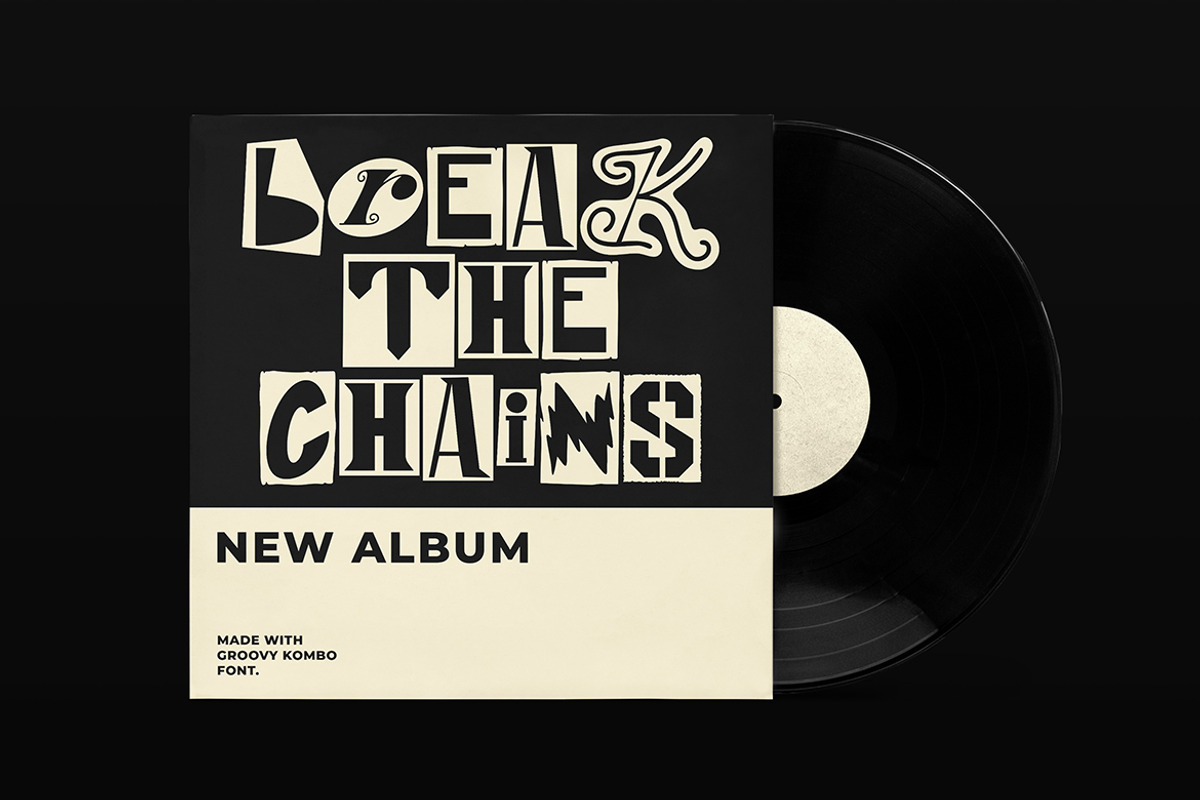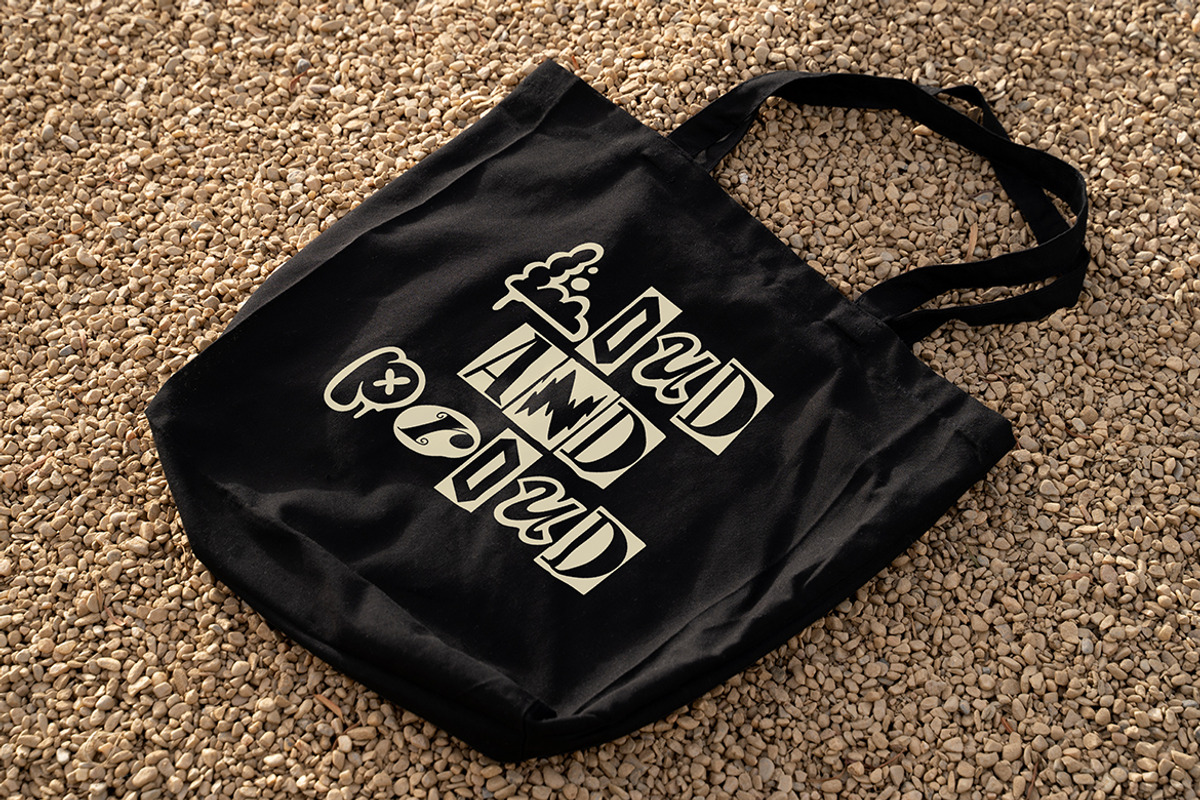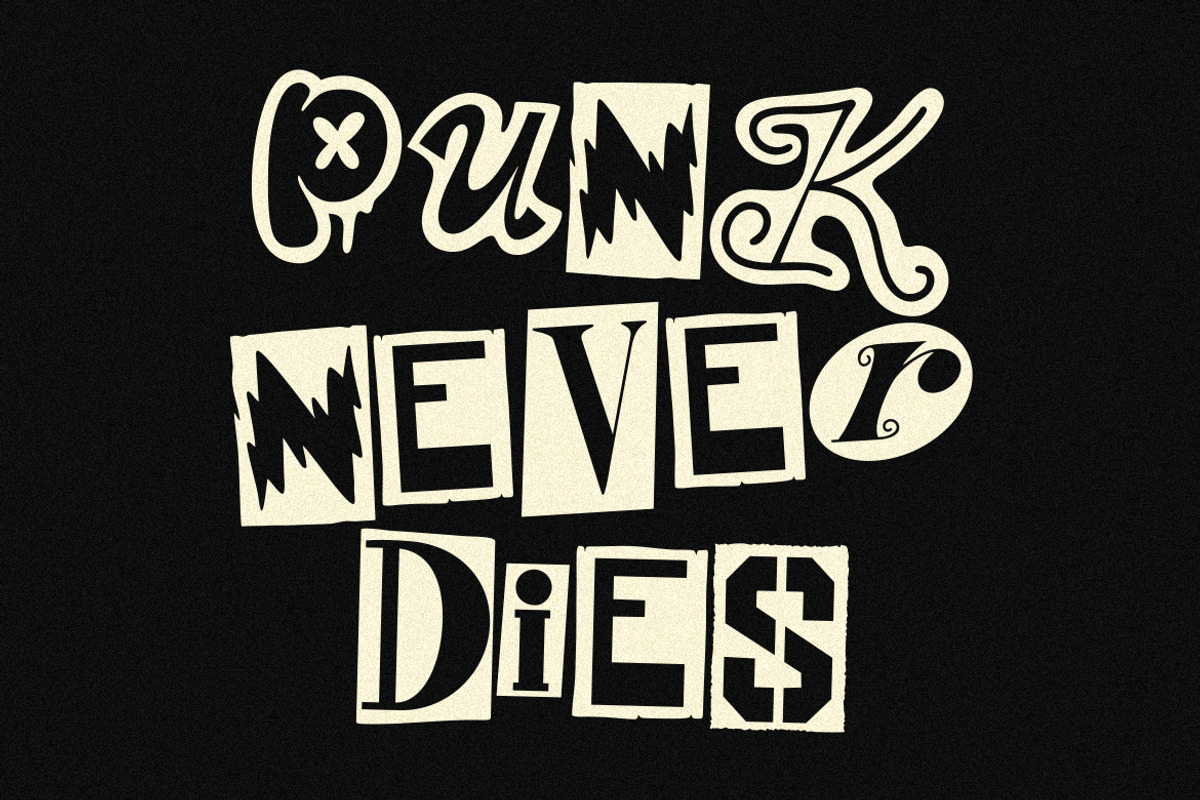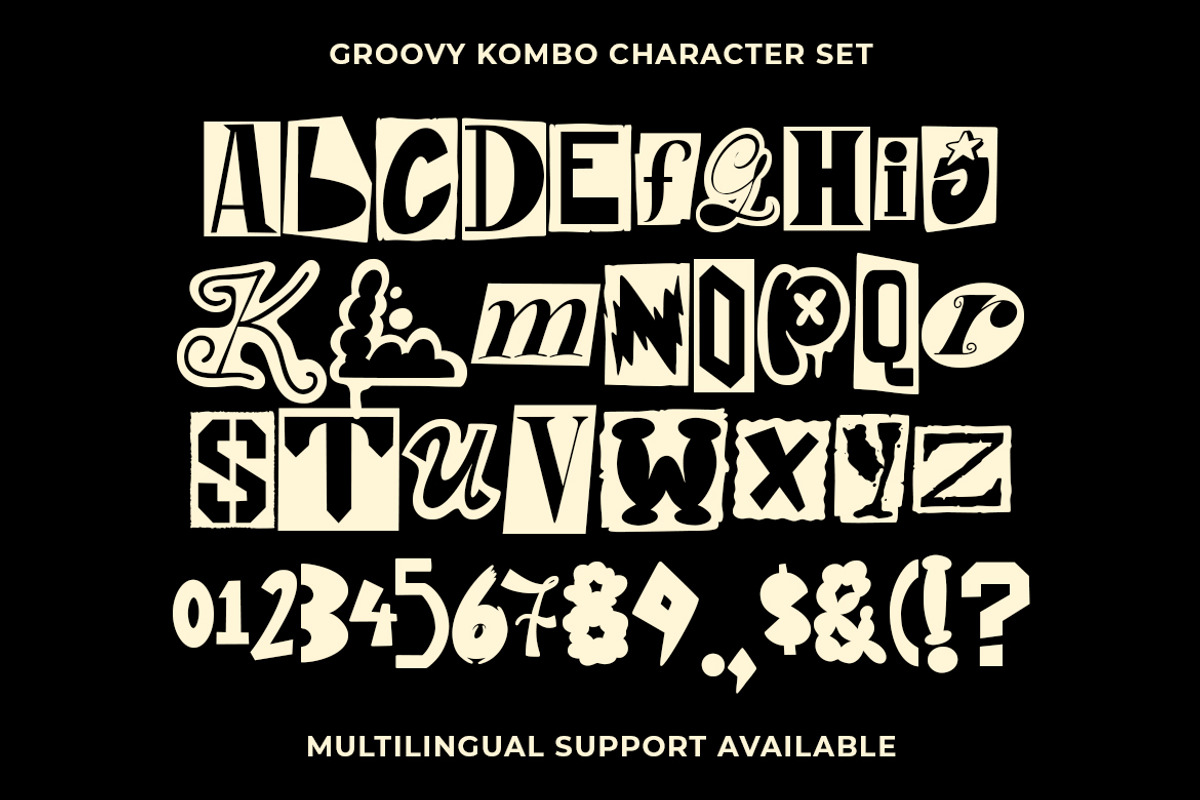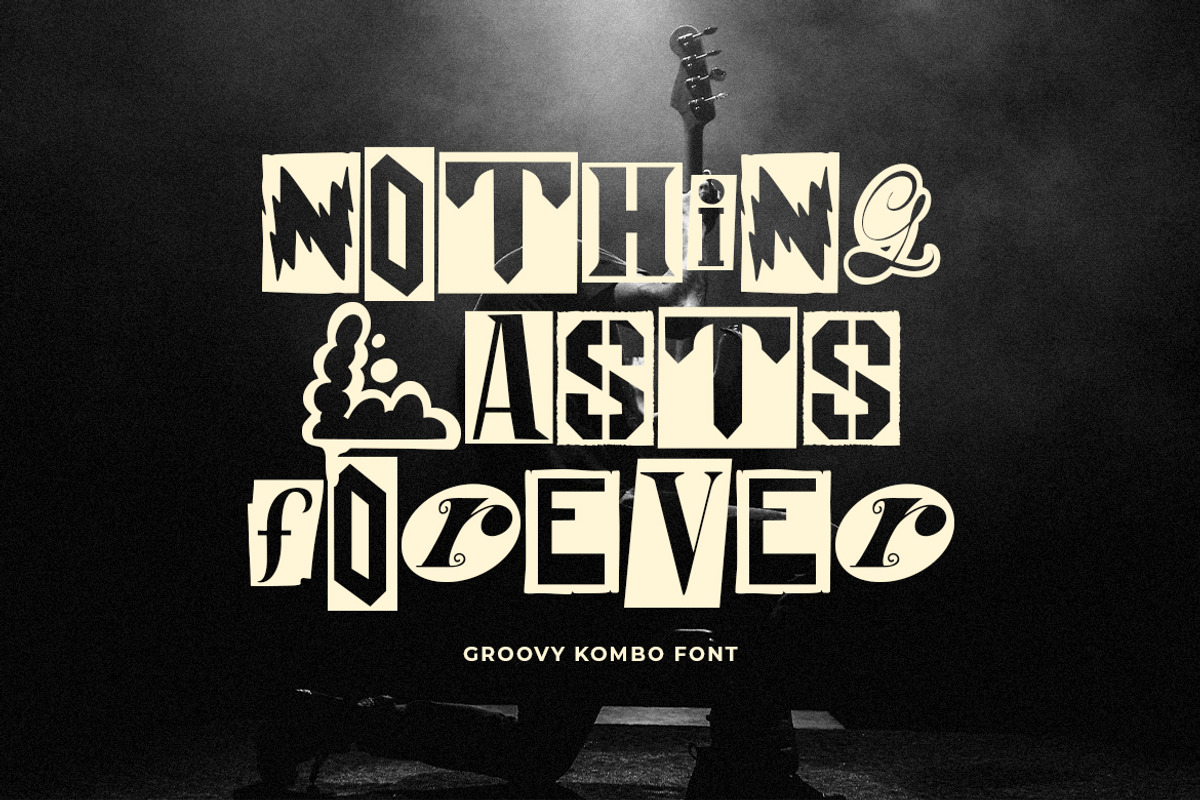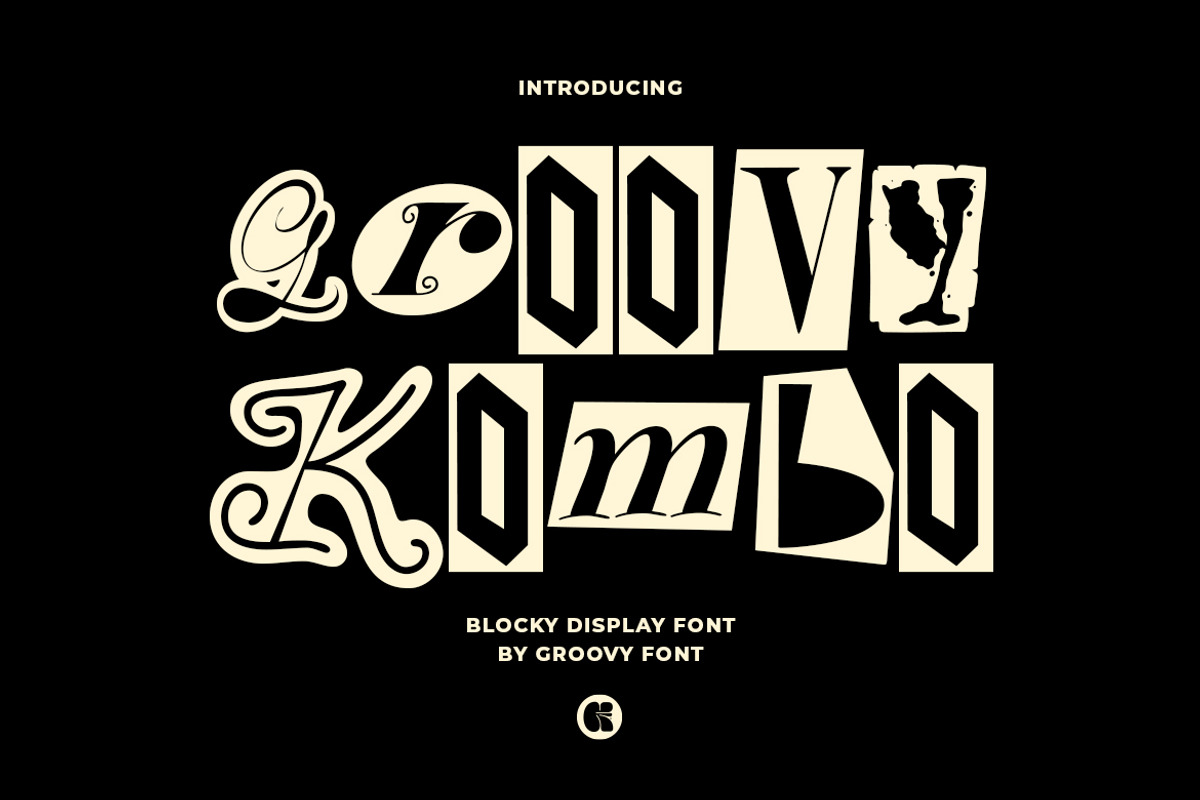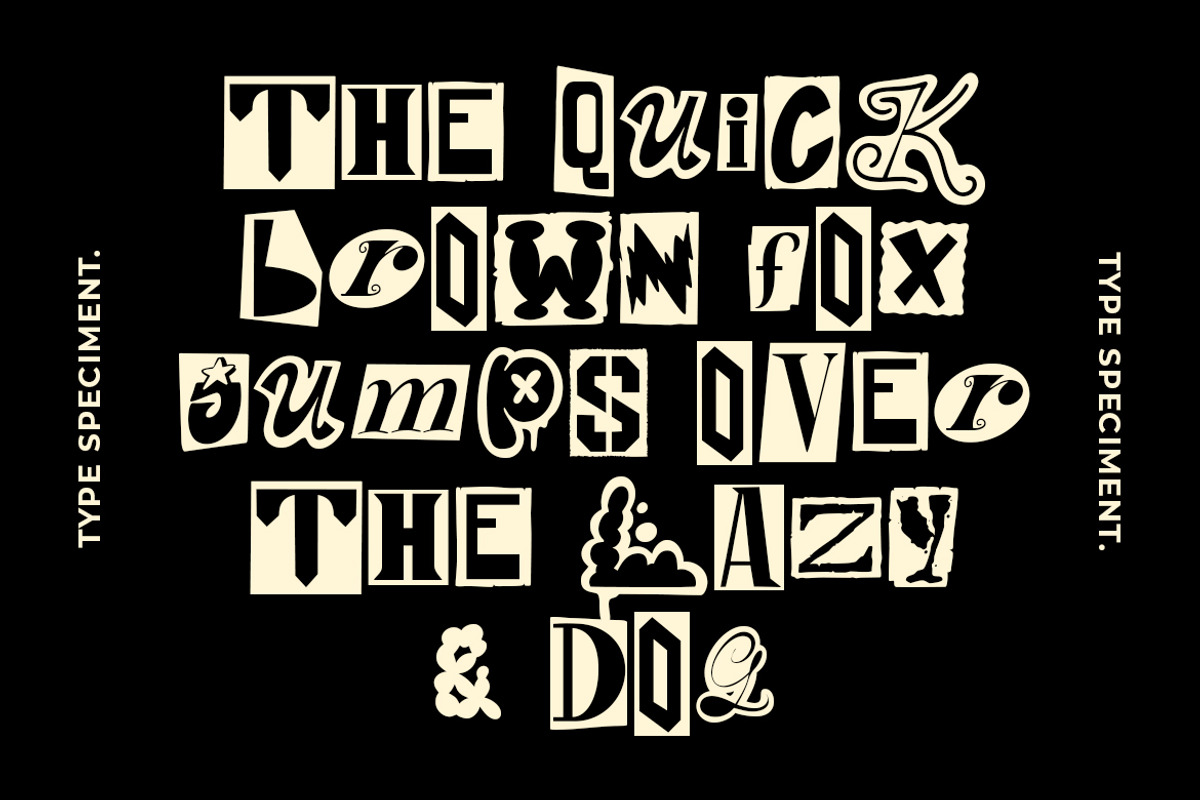
GF Kombo - Blocky Display Font
Groovy Kombo is a bold and striking block display font that combines various styles of block letters.
This unique font offers a mix of different block letter designs, creating a visually dynamic and versatile typeface. Whether you're looking to make a statement or add a modern edge to your designs, Groovy Kombo is the perfect choice. Stand out with this eclectic and eye-catching font that brings a fresh twist to your projects!